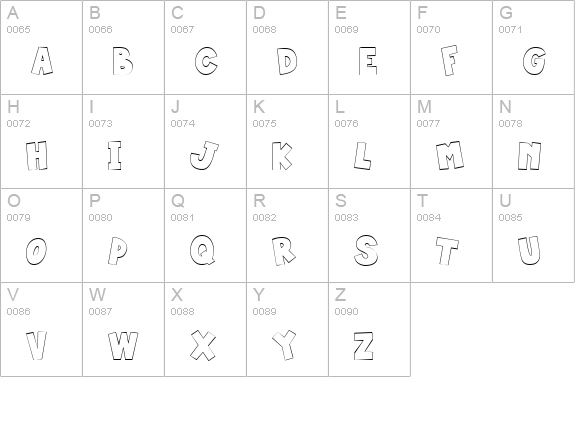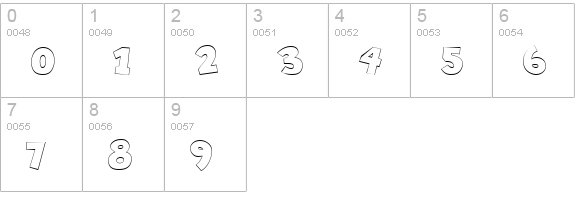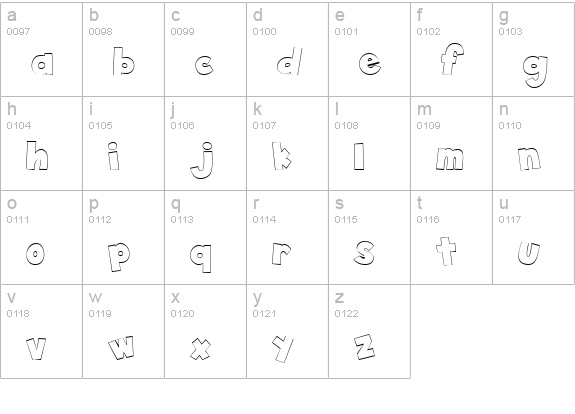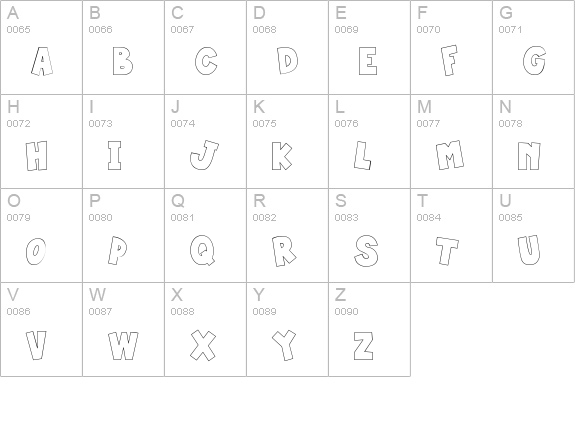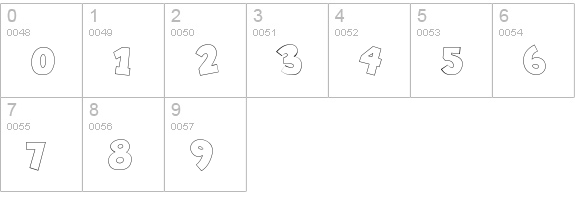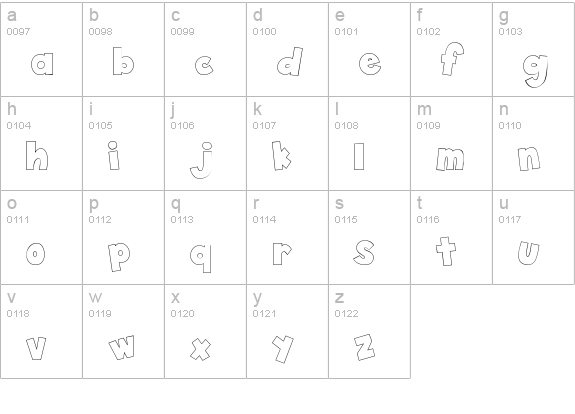
CK Chunky Block Font Details
Introducing CK Chunky Block font, a bold and eye-catching typeface designed to make a statement in your projects. This font features a strong and solid appearance with chunky block lettering that demands attention. Perfect for headlines, posters, logos, and more, CK Chunky Block font exudes a sense of strength and power. Best of all, CK Chunky Block font is available for free download at FontsMarket.com. Whether you're a designer looking to add a touch of boldness to your creations or a content creator seeking a powerful typographic solution, this font is sure to elevate your work to the next level. Download CK Chunky Block font today and unleash its commanding presence in your designs.